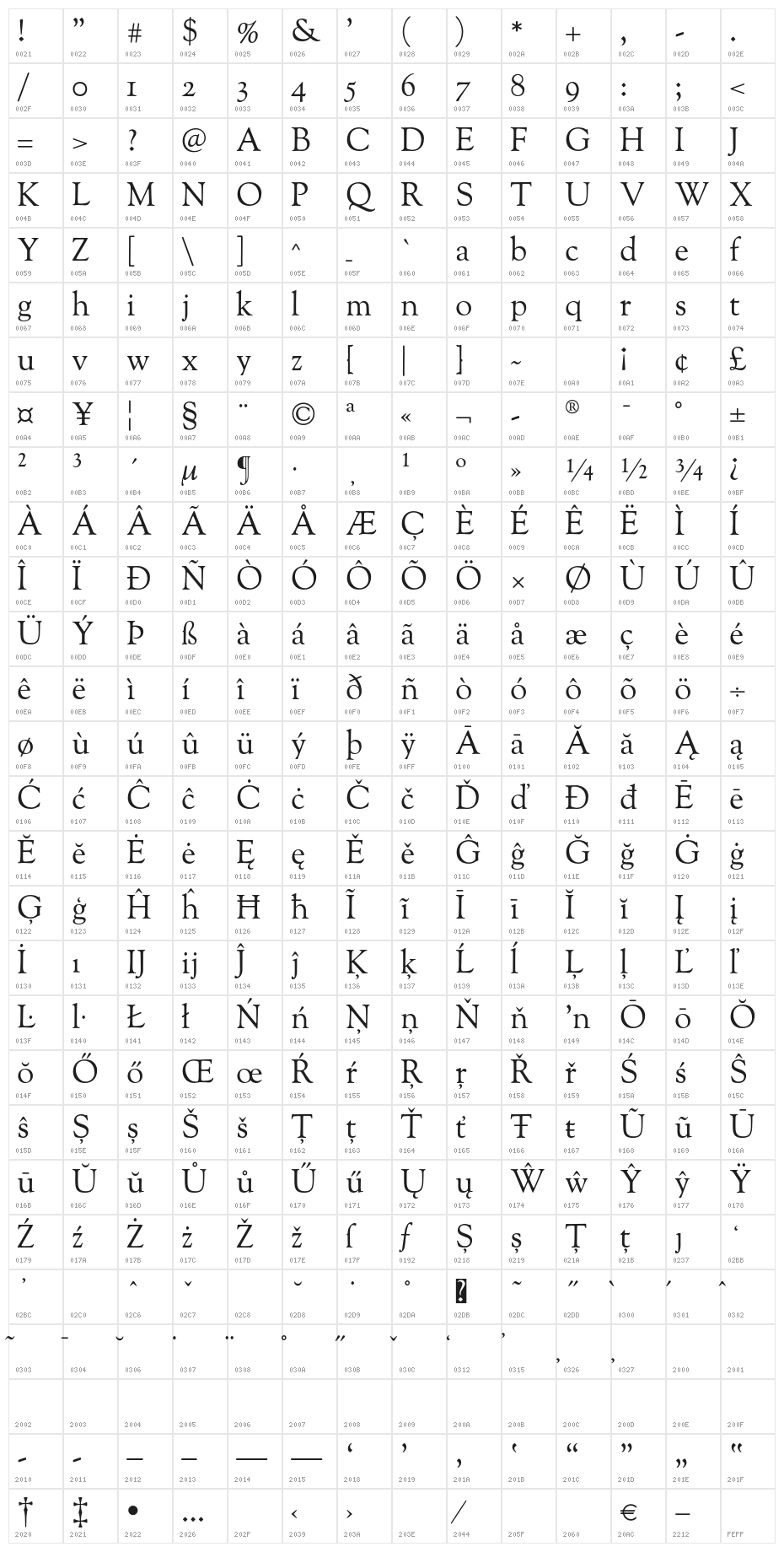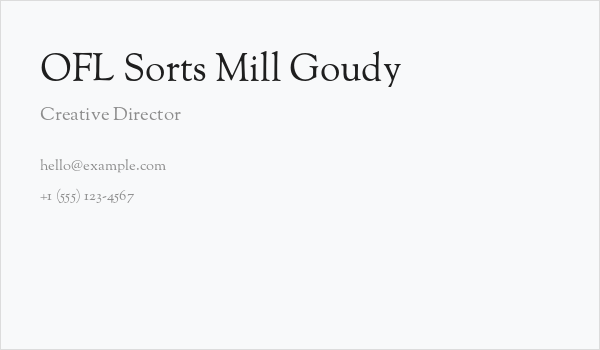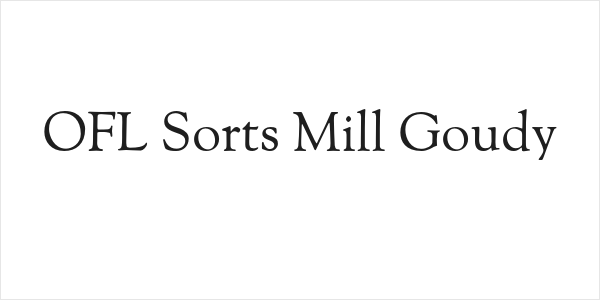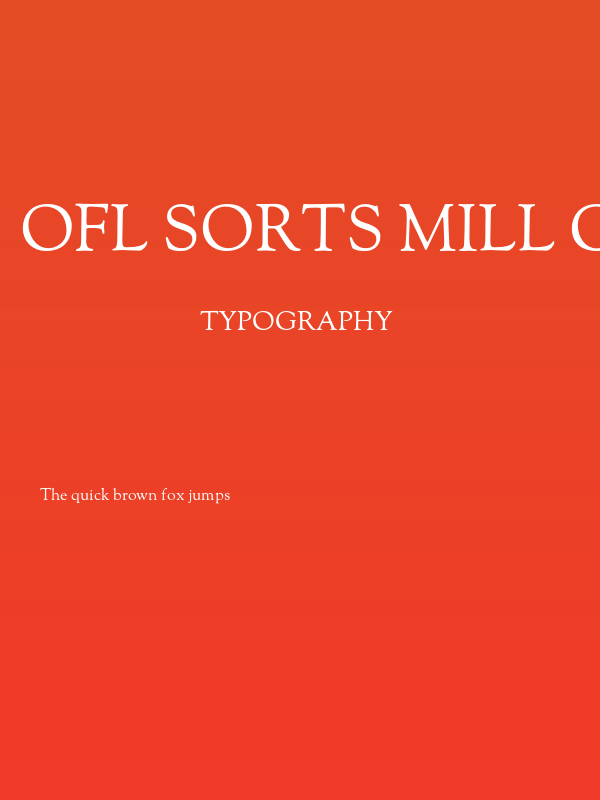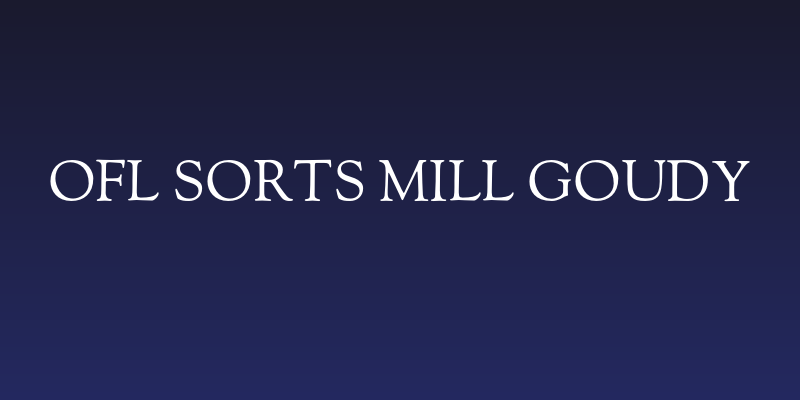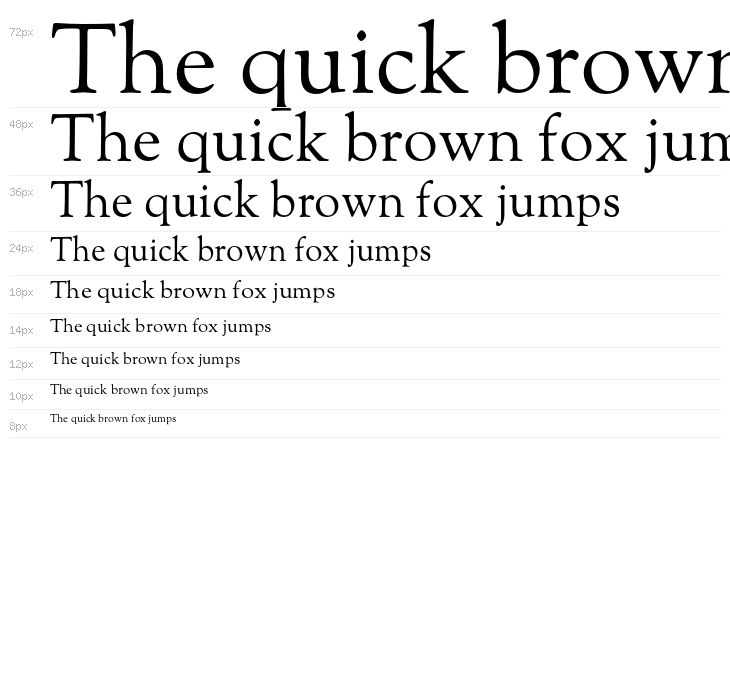
OFL Sorts Mill Goudy Font
OFL Sorts Mill Goudy Description
This font features a classic serif design with elegant, flowing lines and a traditional aesthetic. The characters exhibit a medium contrast in stroke thickness, providing a refined and sophisticated appearance. The serifs are well-defined and slightly curved, adding a touch of grace to the overall structure. The uppercase letters are stately and balanced, while the lowercase letters maintain a harmonious flow. Numerals are clear and distinct, with a slight old-style influence. The special characters are crafted with attention to detail, ensuring consistency across the typeface.
| Use Case | Body text, Editorial design, Formal invitations |
| Proposed Projects | Ideal for book typesetting, formal invitations, branding for luxury products, and editorial design. |